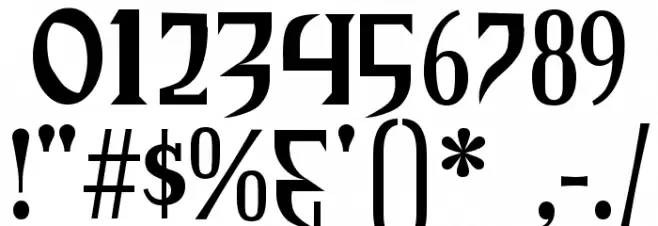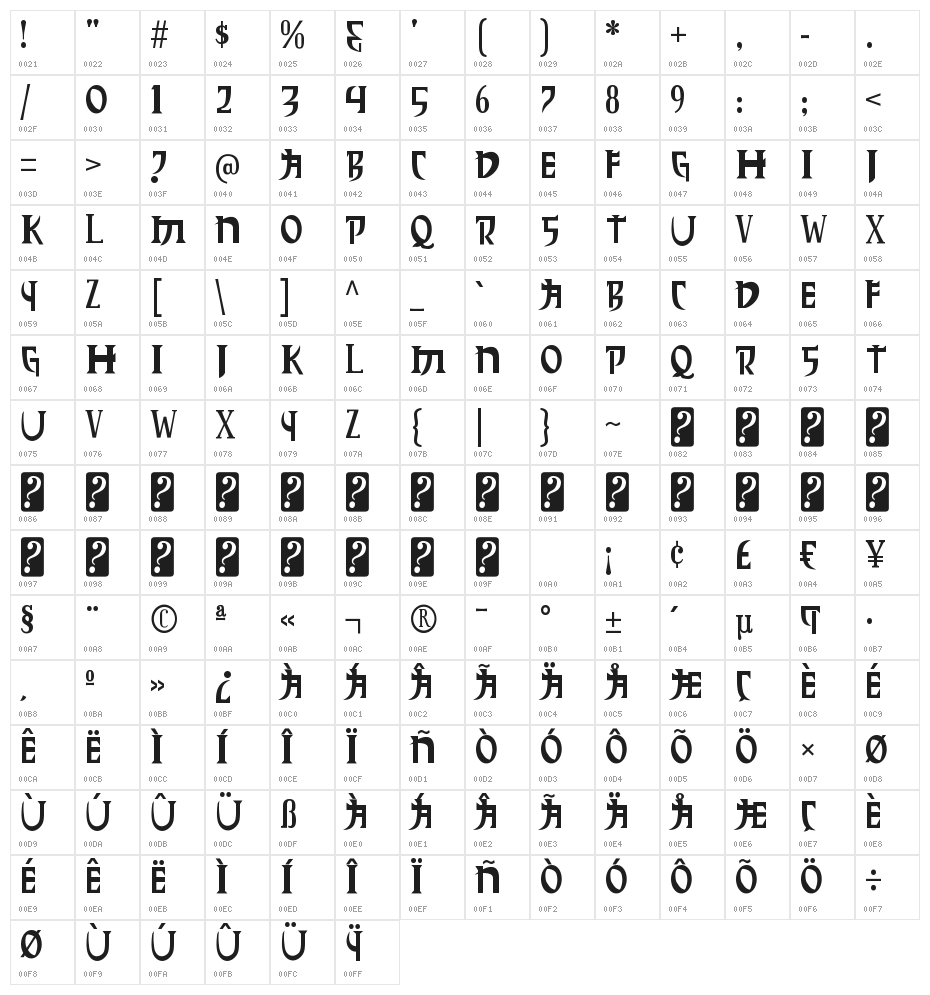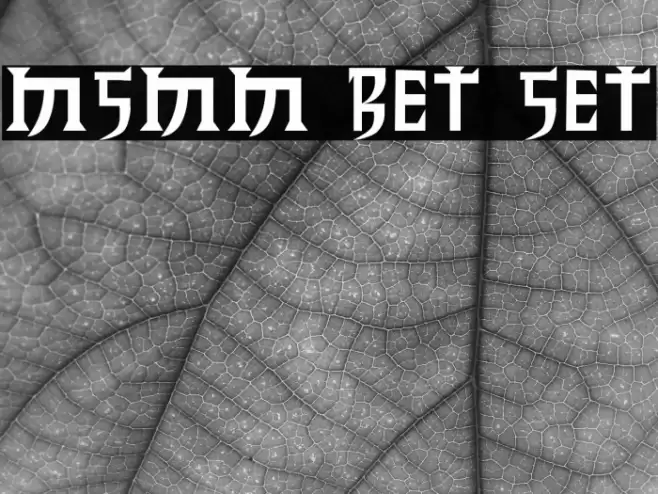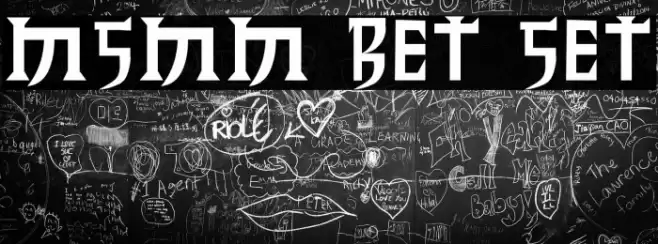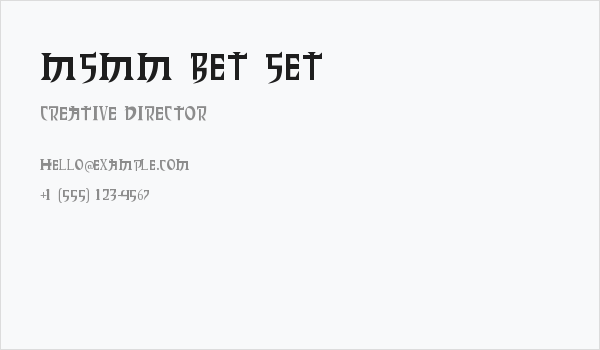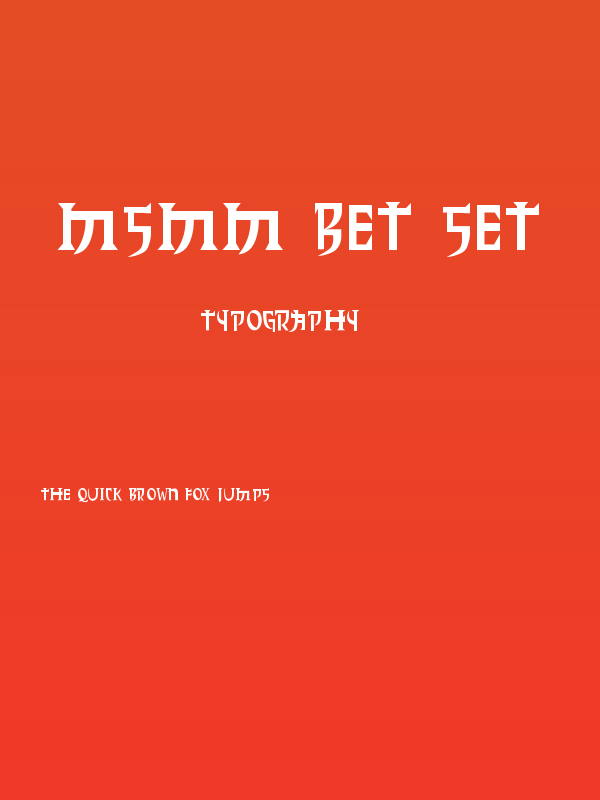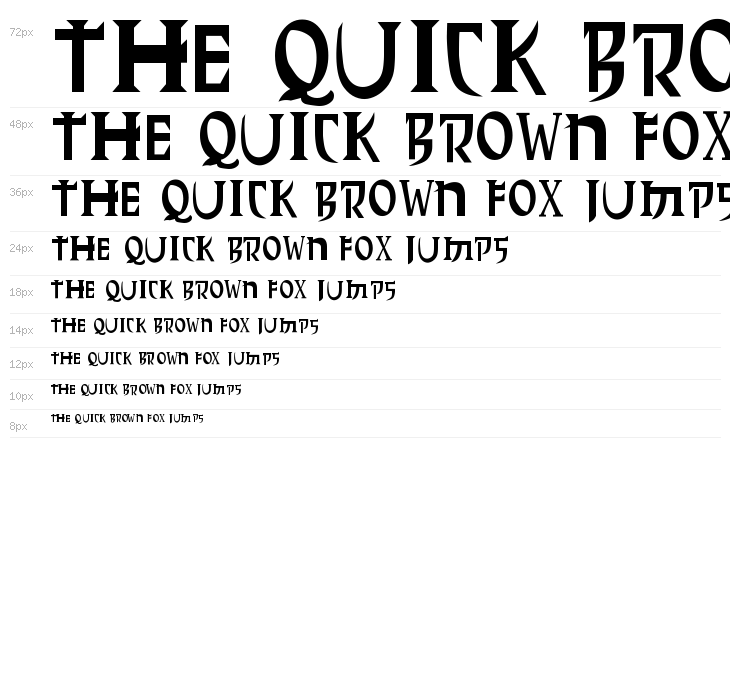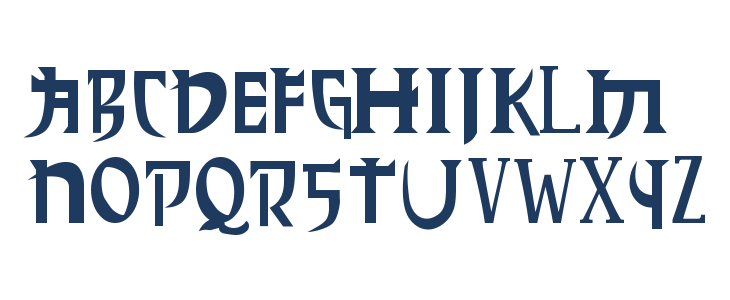
MSMM BET SET Font
MSMM BET SET Description
This font features a bold and striking design with sharp, angular edges and a strong presence. The uppercase letters are characterized by their geometric shapes and dramatic serifs, giving them a gothic and medieval appearance. The lowercase letters maintain the same angular style, providing a cohesive look across the typeface. Numbers and special characters are equally bold and stylized, ensuring consistency throughout. The overall design is highly decorative, making it suitable for projects that require a bold statement.
| Proposed Projects | Ideal for use in branding, posters, album covers, and any project requiring a dramatic and bold typeface. |